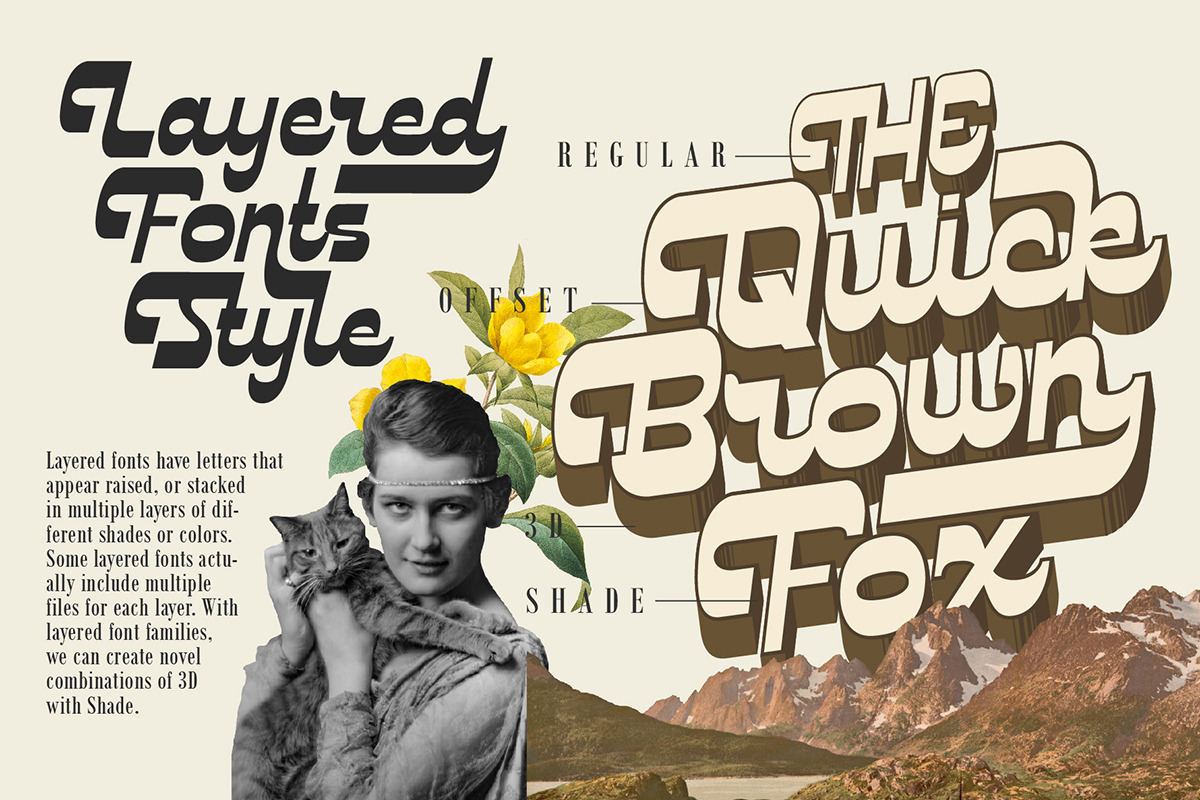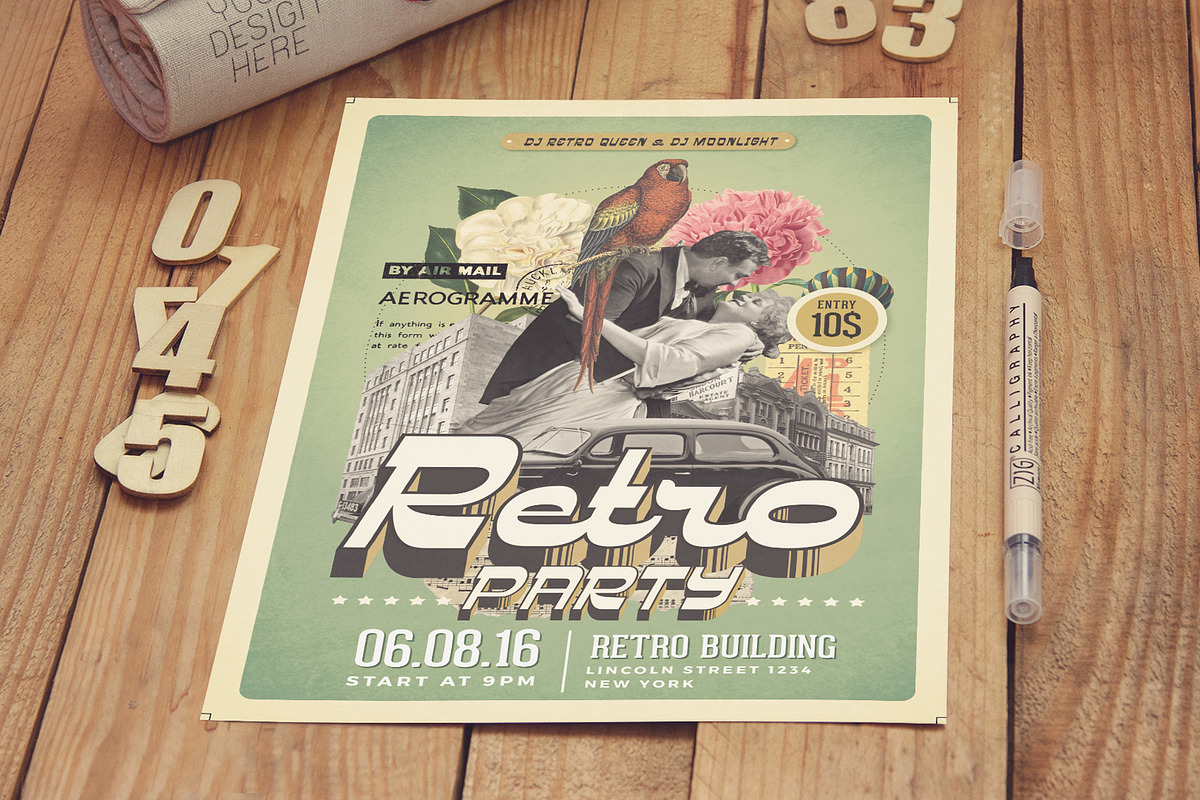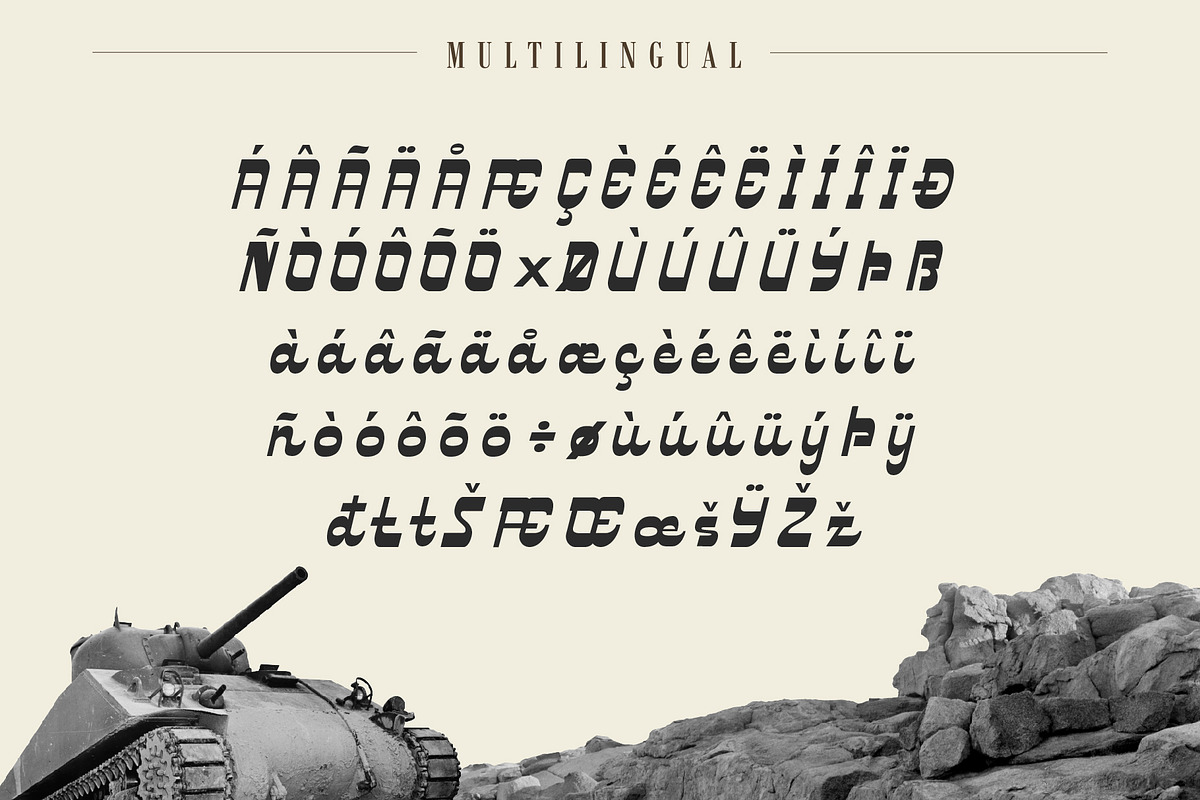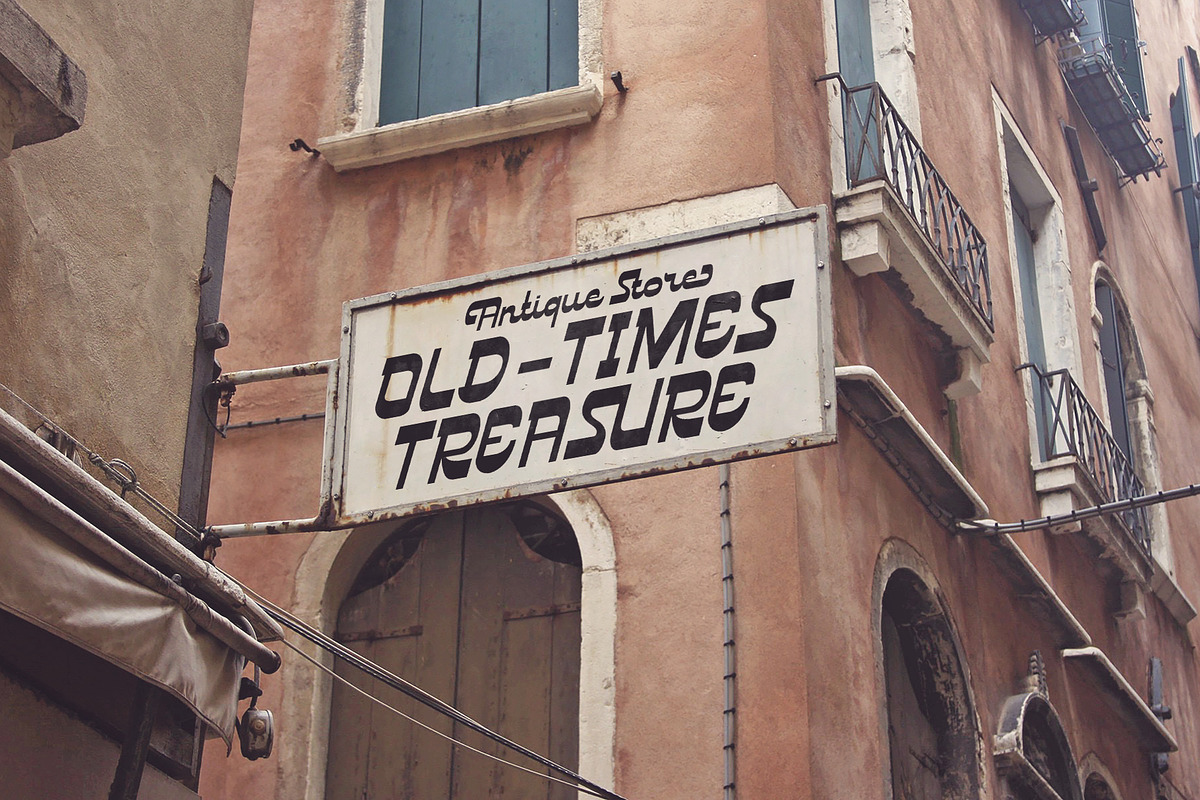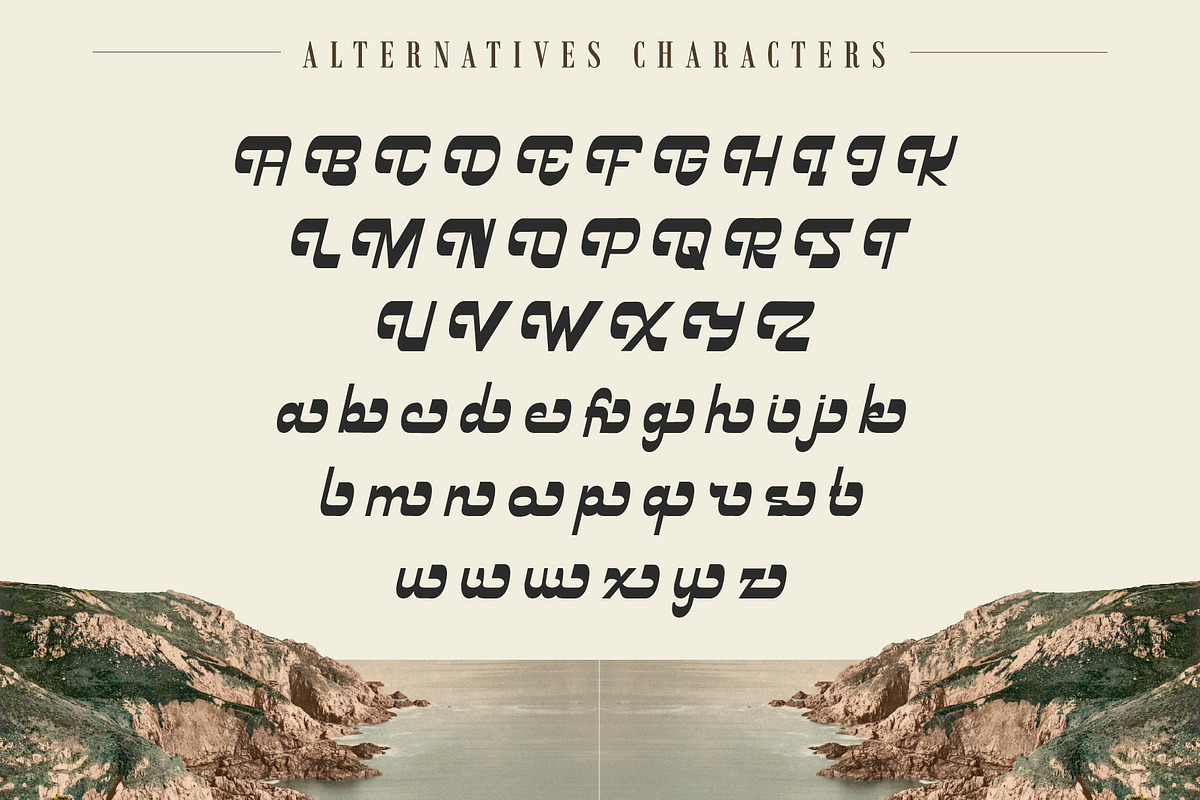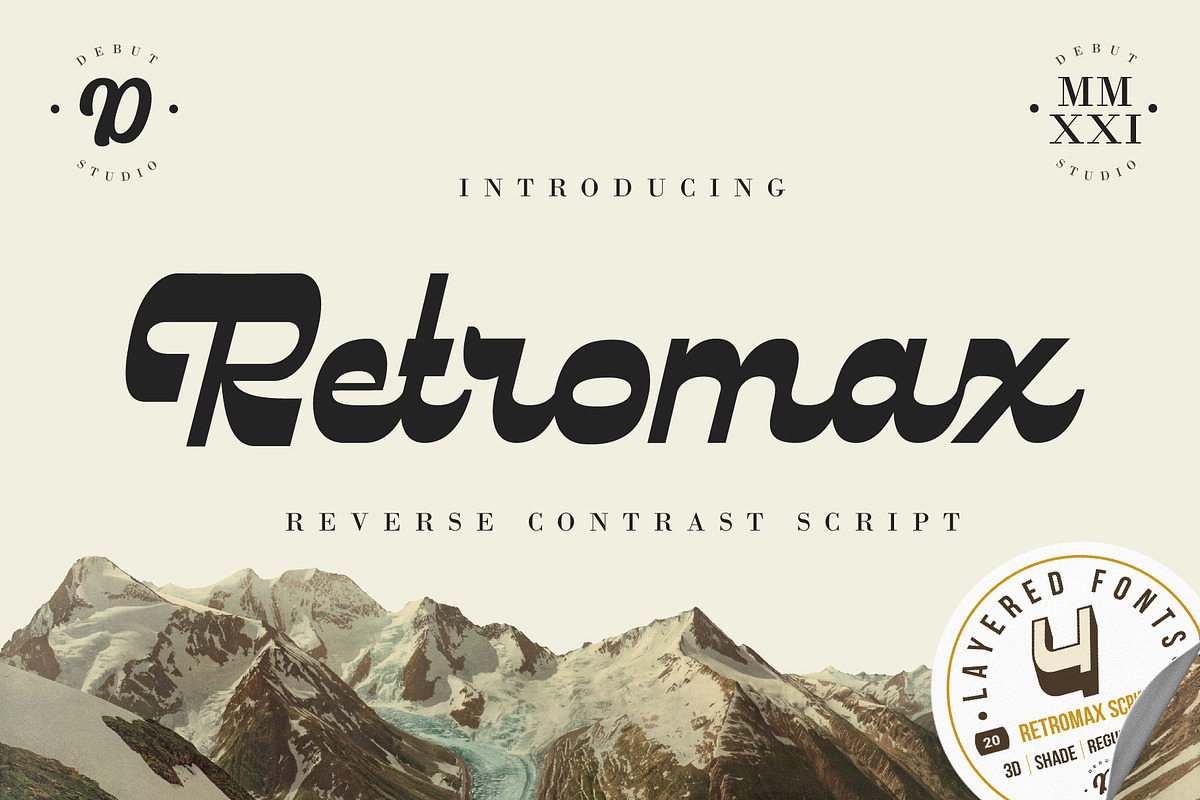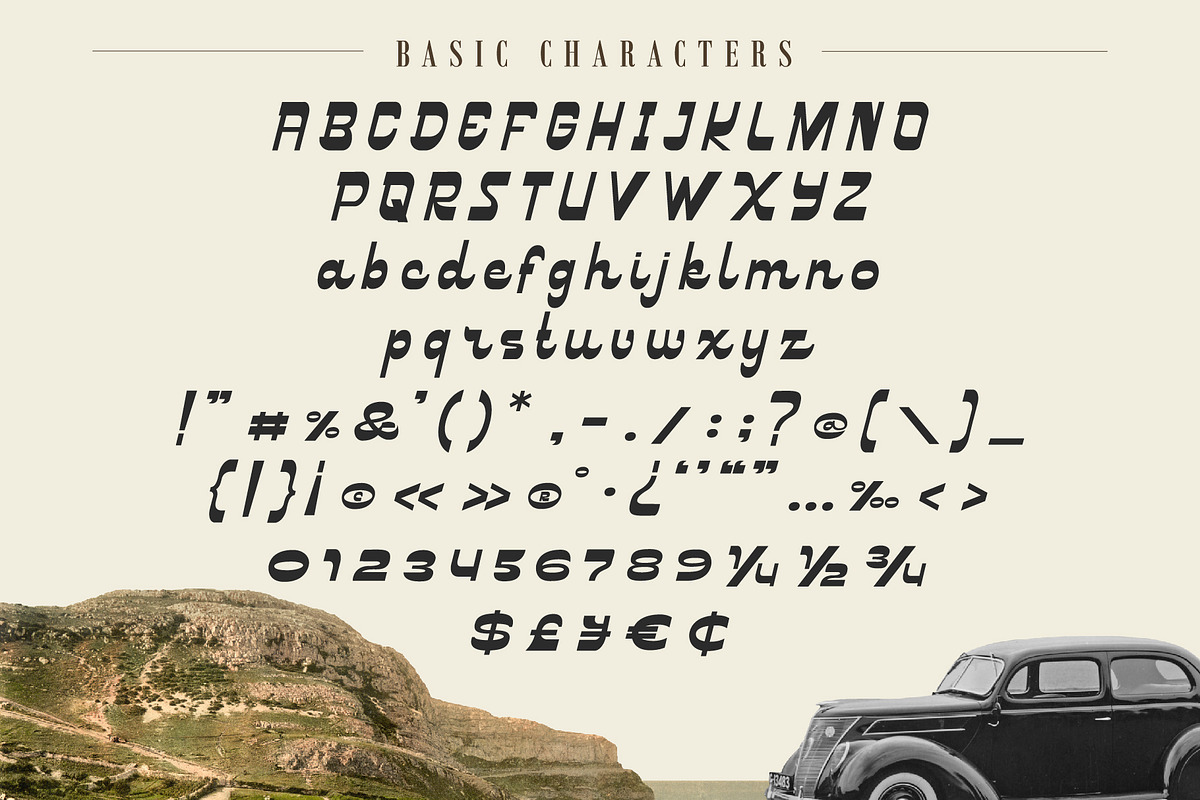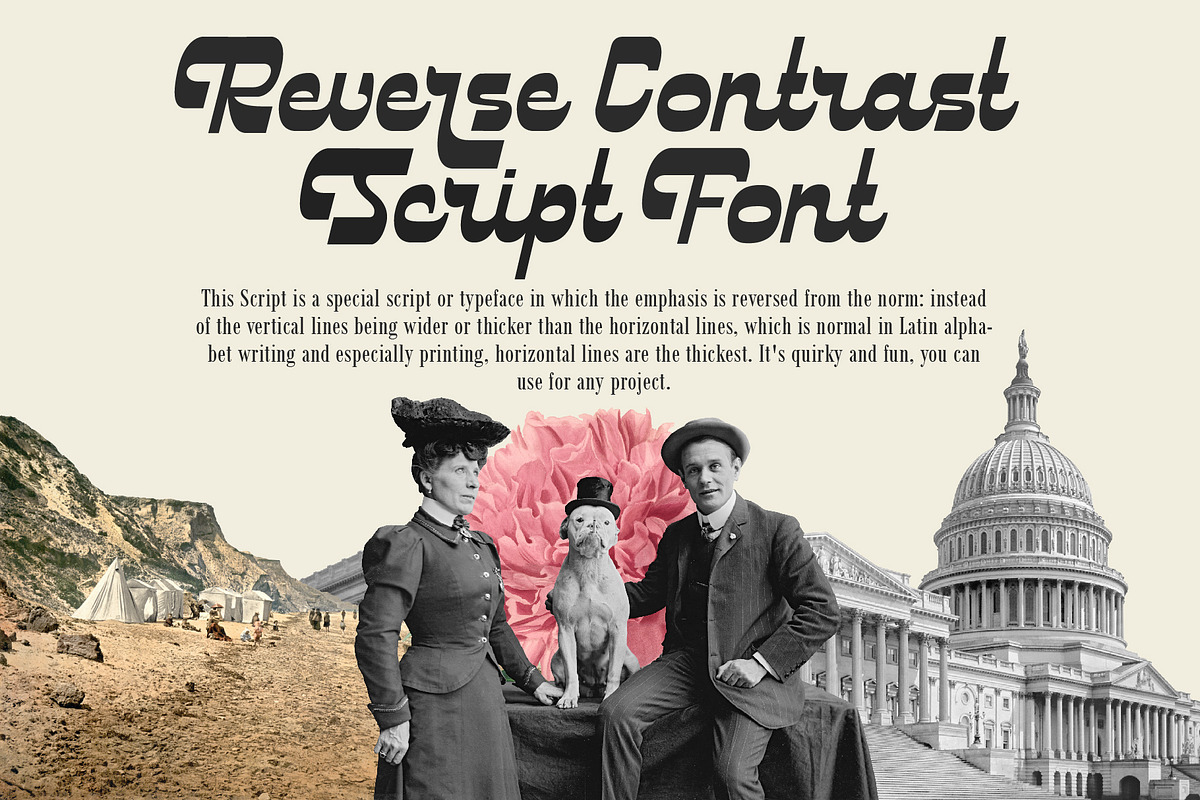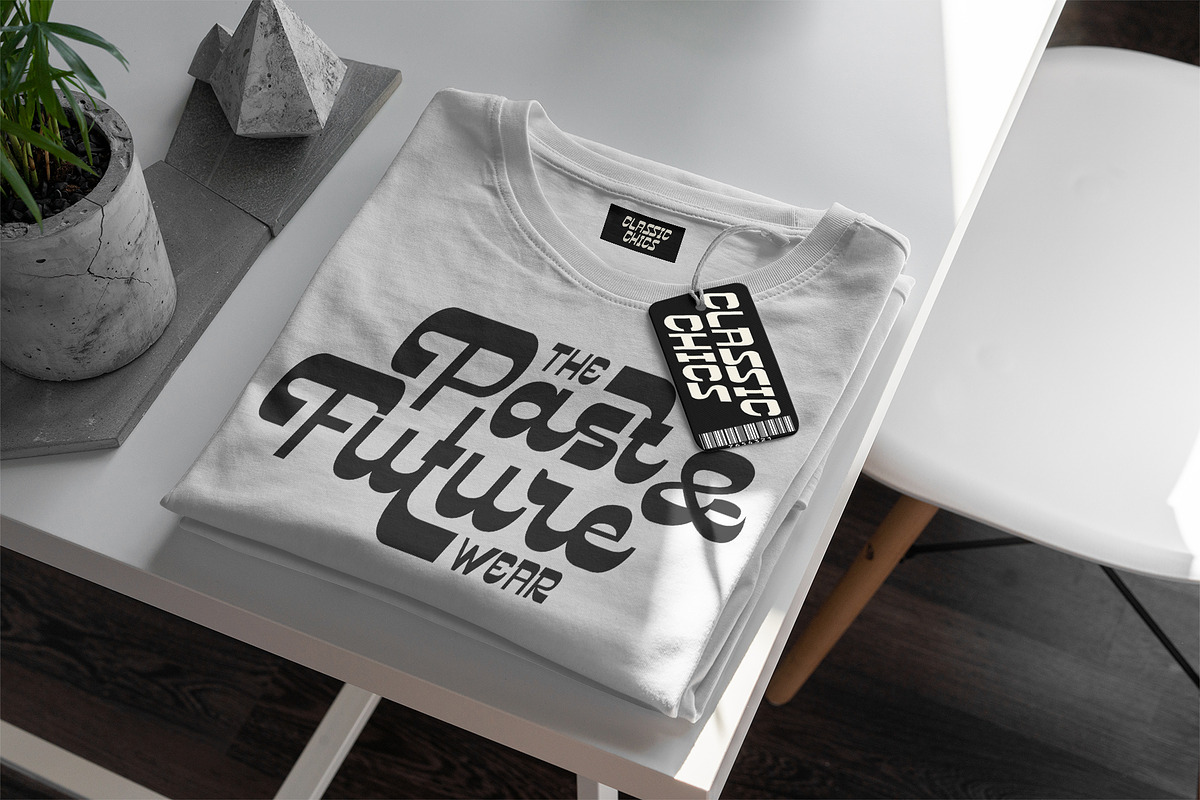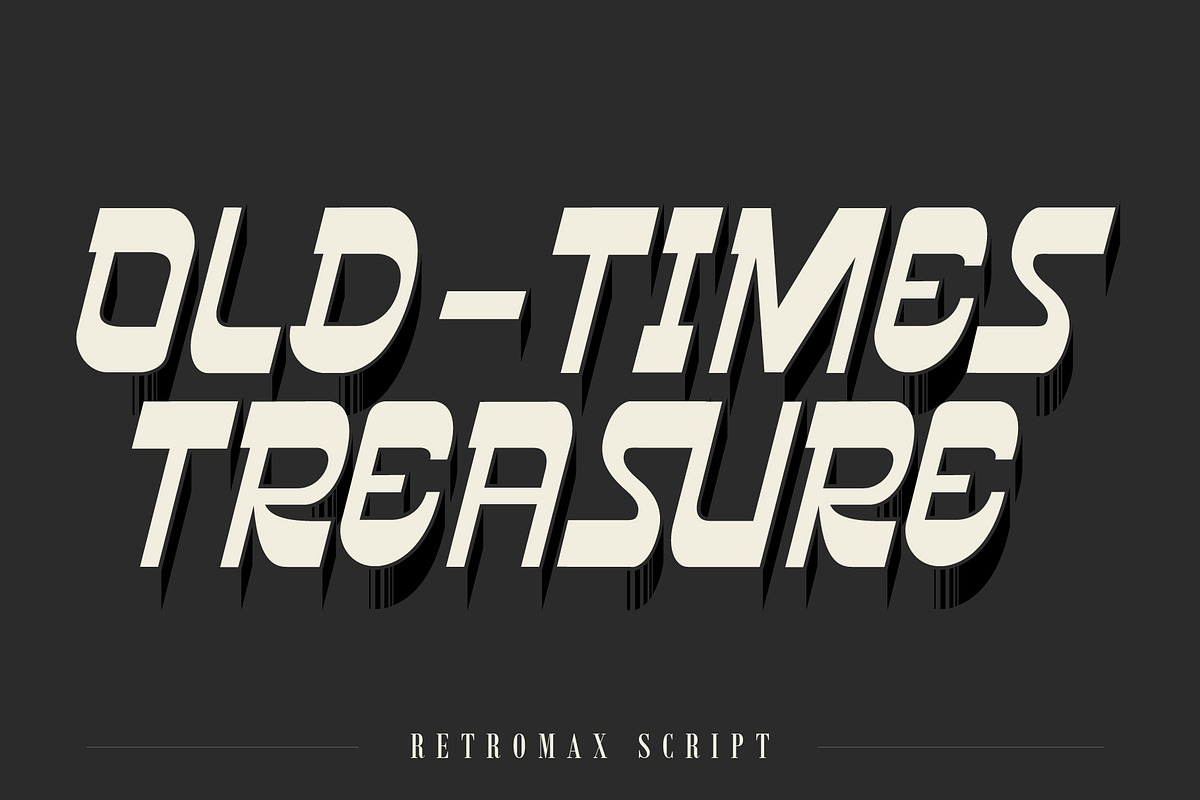
Retromax | Reverse Contrast Script
The Retromax....
This Script is a special script or typeface in which the emphasis is reversed from the norm: instead of the vertical lines being wider or thicker than the horizontal lines, which is normal in Latin alphabet writing and especially printing, horizontal lines are the thickest. It's quirky and fun, you can use for any project.
Retromax is also a Layered Fonts, Layered fonts have letters that appear raised, or stacked in multiple layers of different shades or colors. Some layered fonts actually include multiple files for each layer. With layered font families, we can create novel combinations of 3D with Shade.
- Number & Punctuation
- Multiple Language & Stylistic Alternate